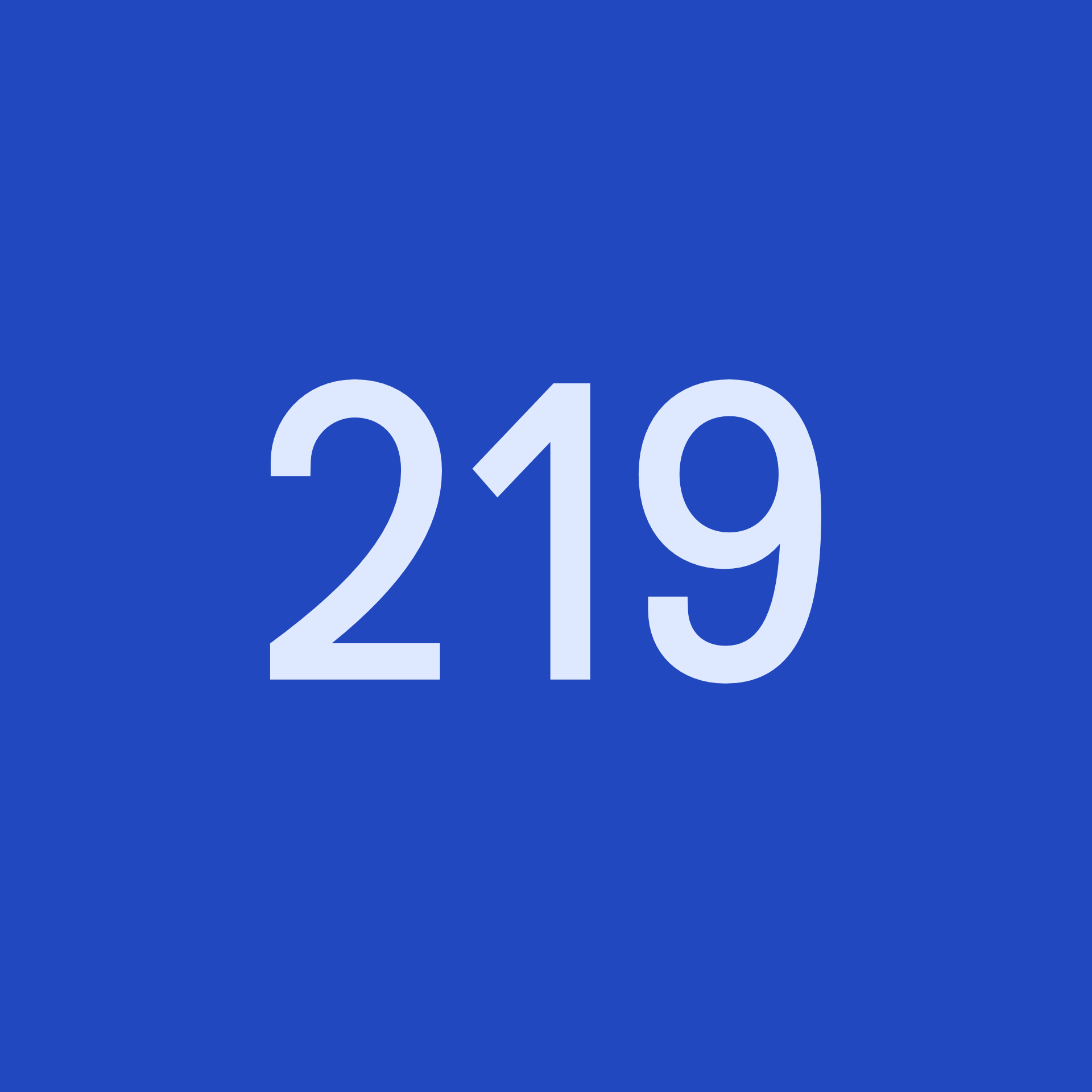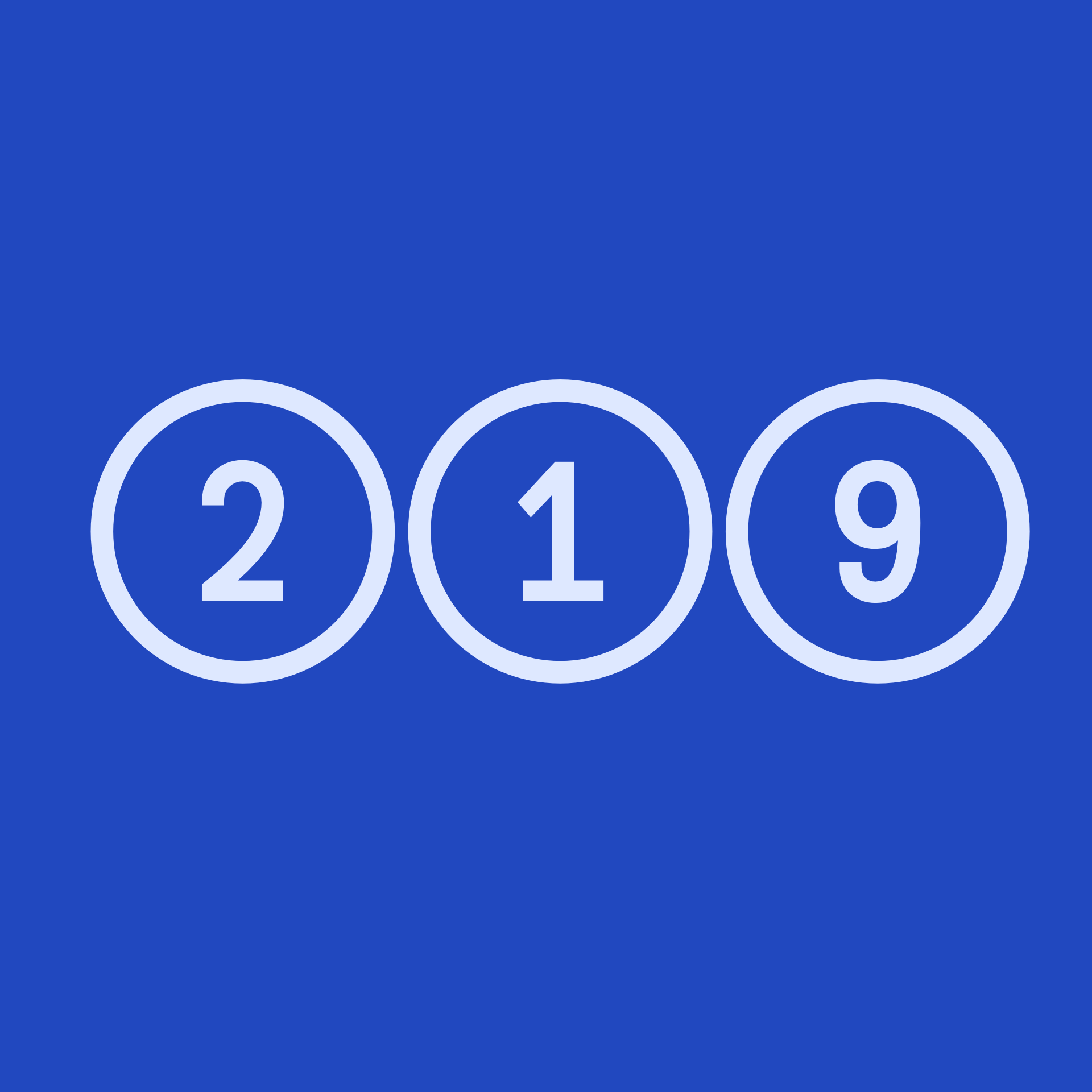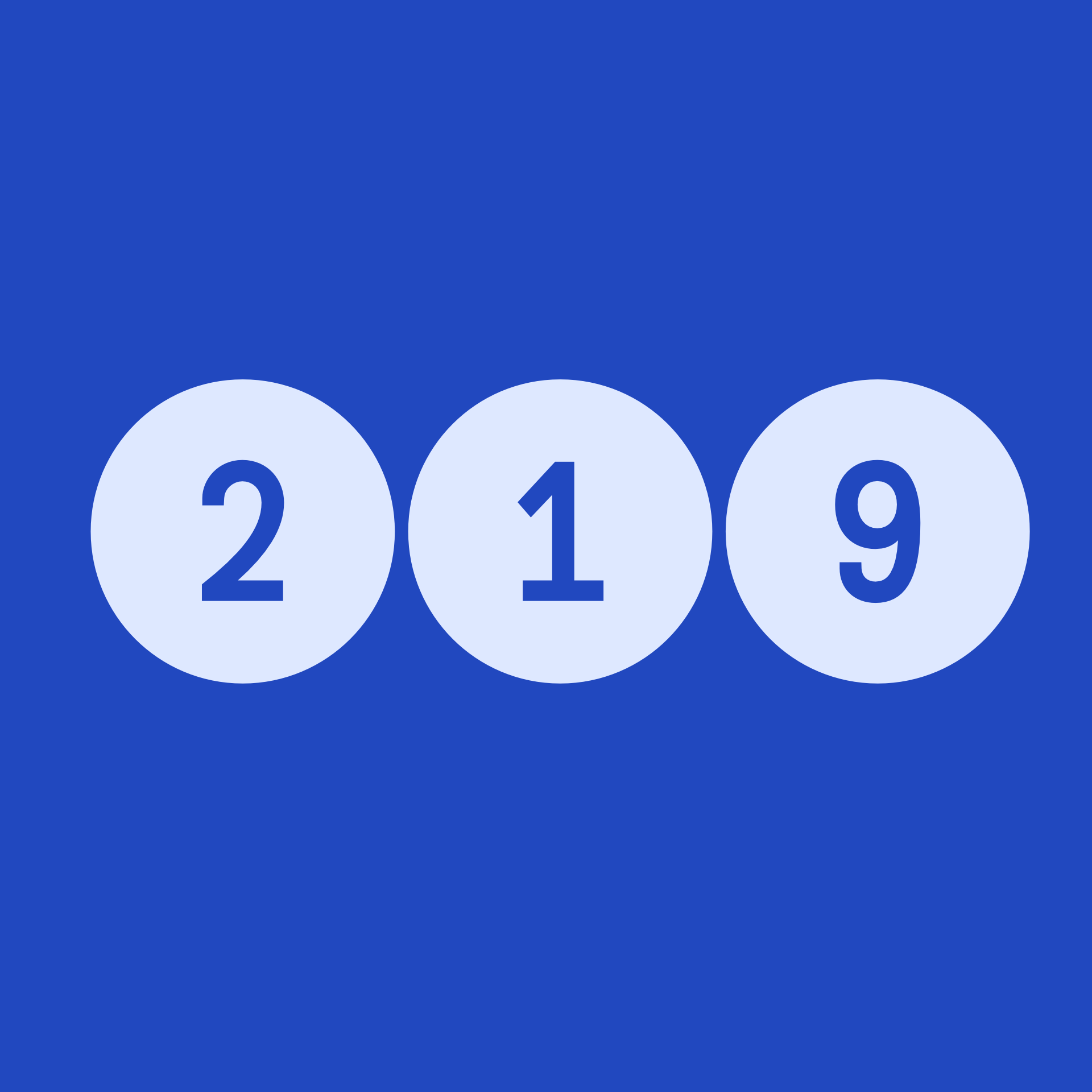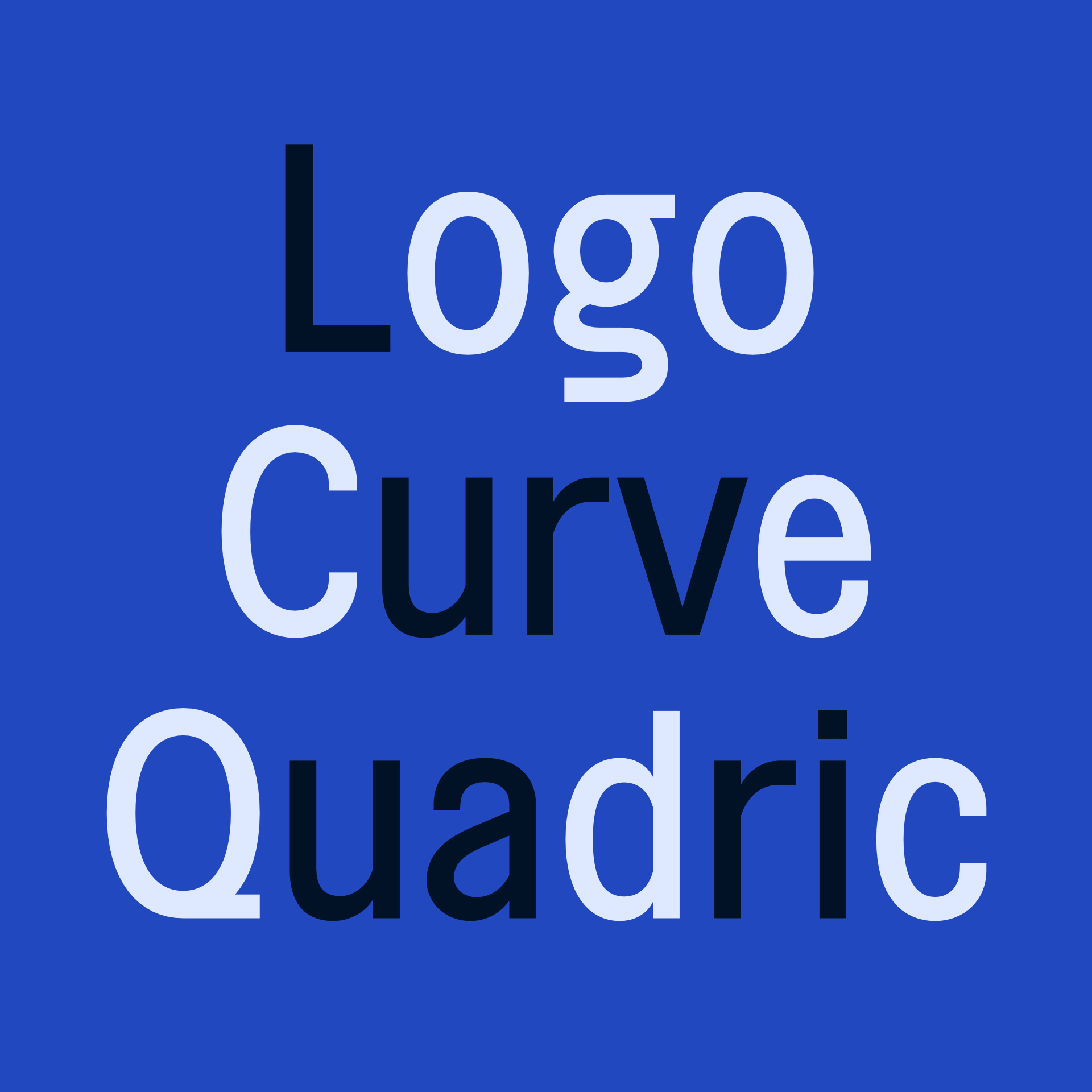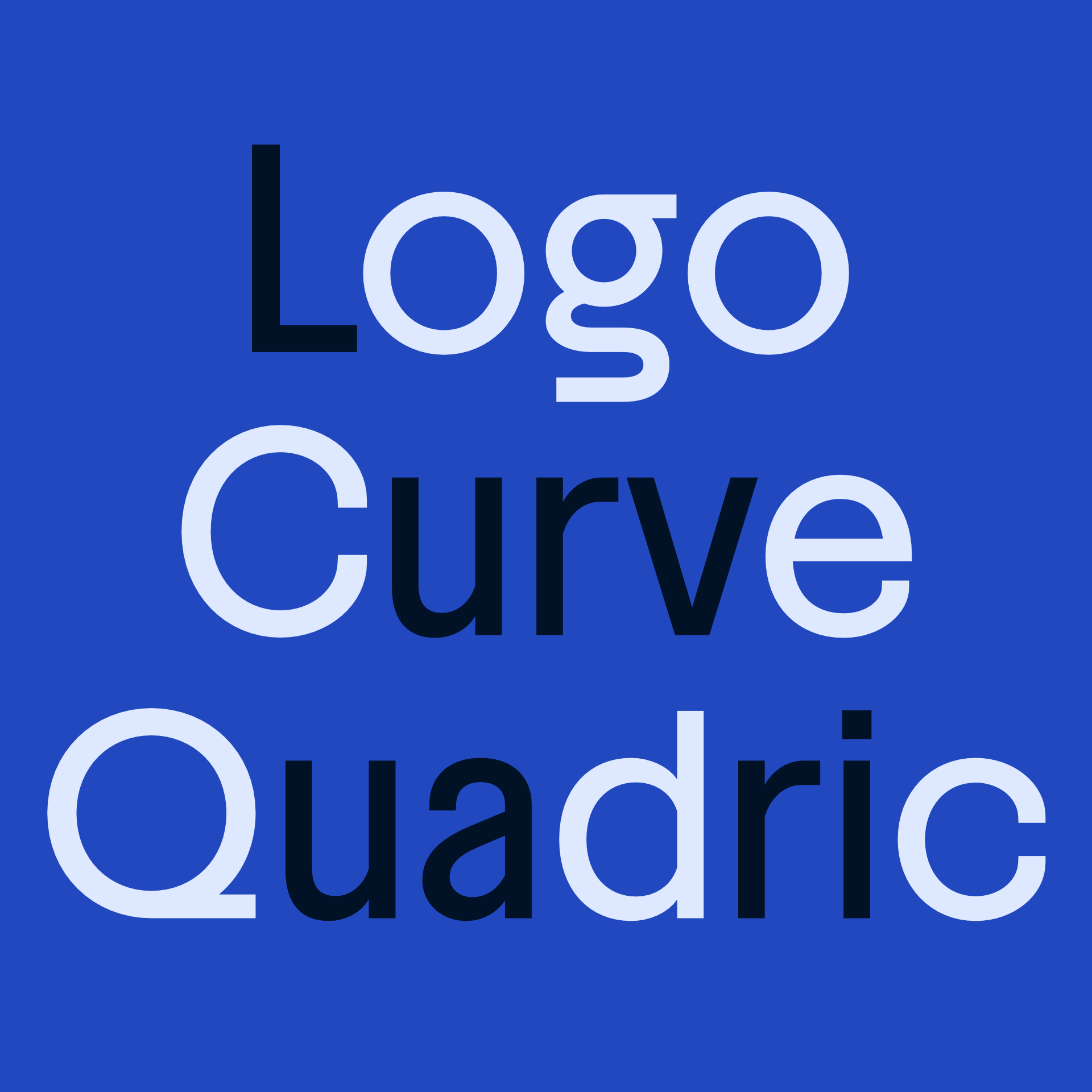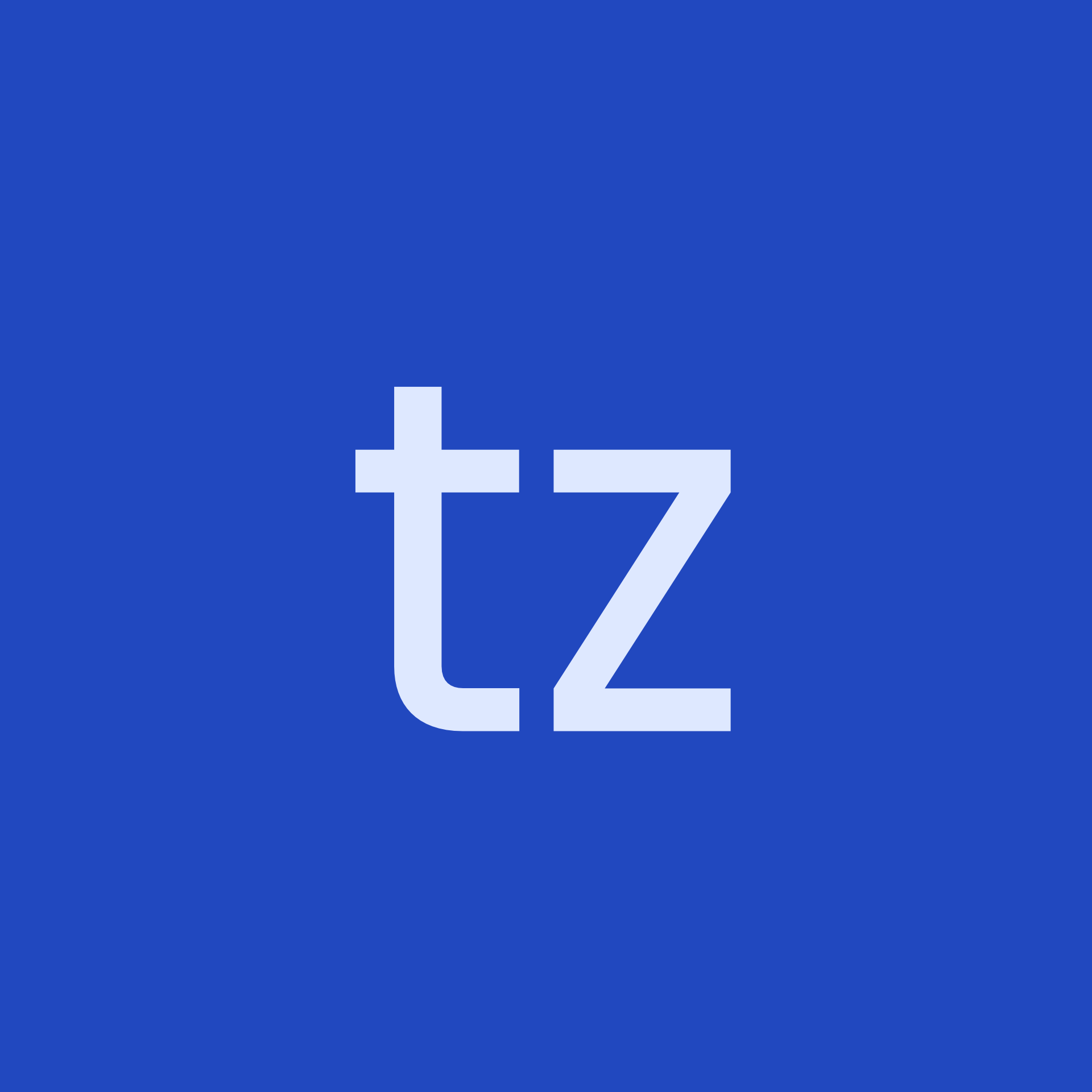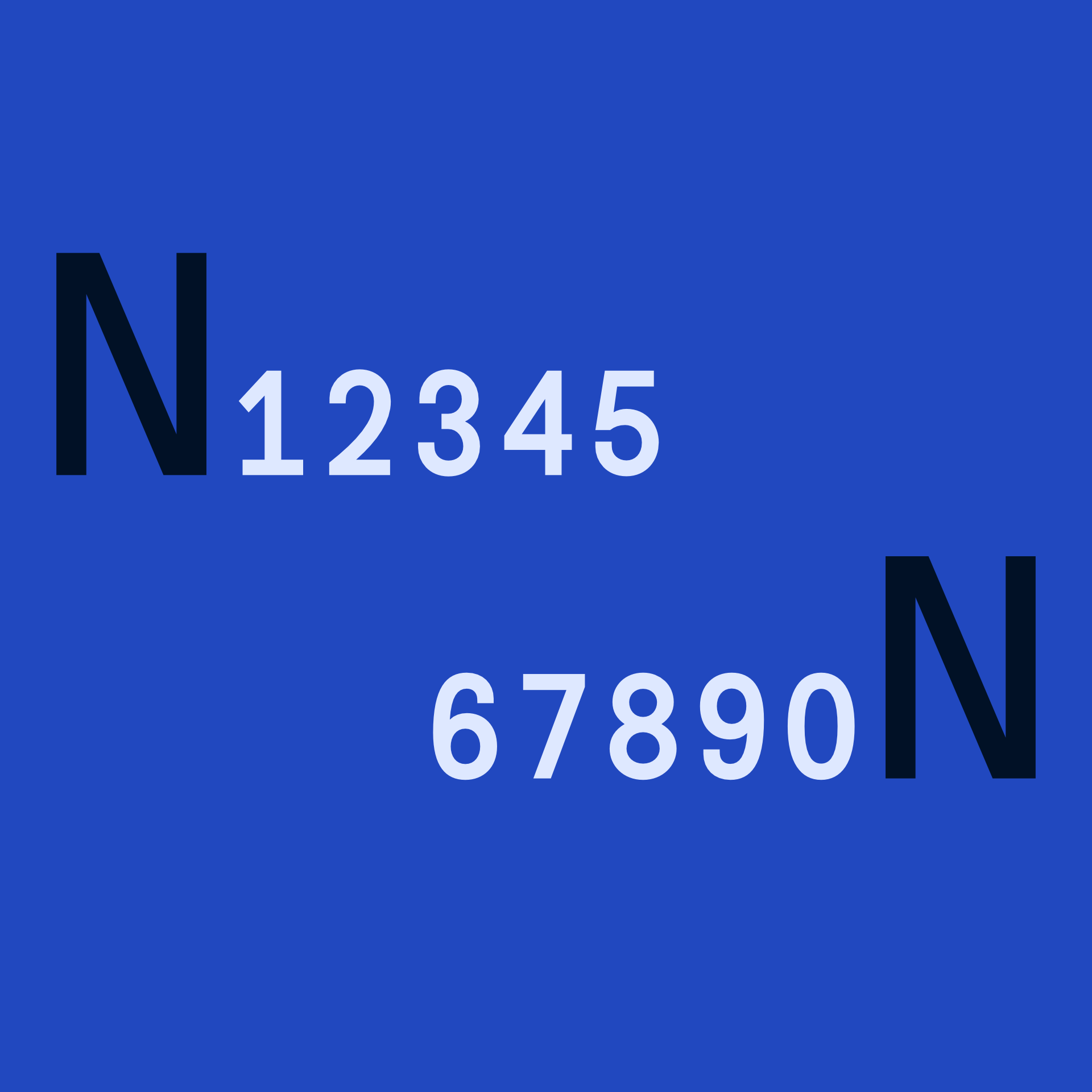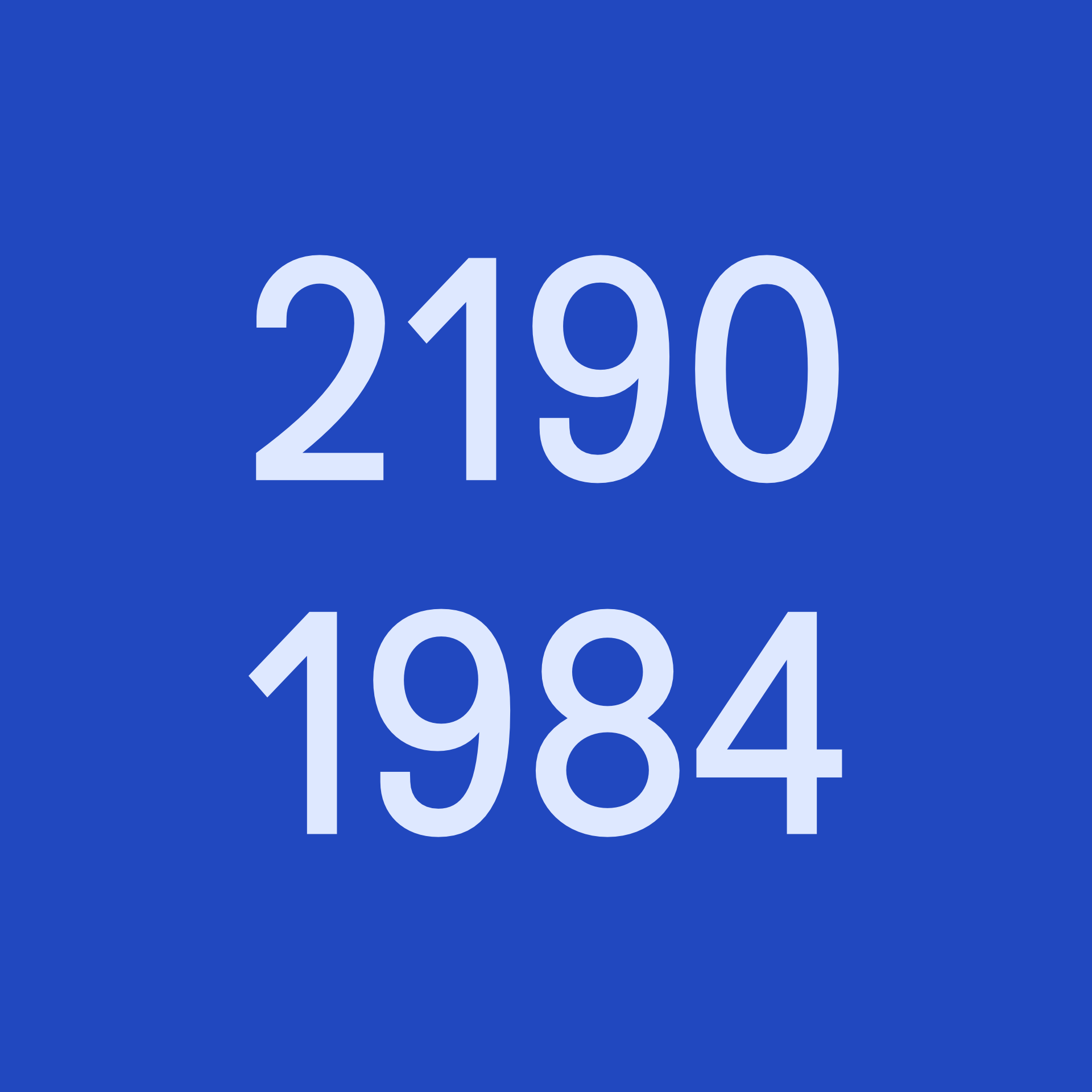
Notion
Notion is a geometric typeface with a pragmatic spirit and understated elegance. Rooted in the tradition of early grotesque-inspired fonts, it balances formal construction with subtle warmth.
Notion is a geometric typeface with a pragmatic spirit and understated elegance. Rooted in the tradition of early grotesque-inspired fonts, it balances formal construction with subtle warmth. Its slightly condensed proportions make it particularly well-suited as a text typeface, combining economy of space with a strong typographic rhythm.
Designed from a minimalist type design perspective, BS Notion favors clean, straight terminals that reinforce its functional typeface character. This is particularly visible in characters like a, f, g, r, t and Q, where structural clarity takes precedence over ornament.
BS Notion features two sets of flexible alternates to enhance usability. The first transforms oval terminals into near-perfect circles, shifting the tone from utilitarian to subtly expressive. The second introduces rounded forms for punctuation and diacritics, offering a softer, more approachable texture.
The family spans ten weights from Hairline to Black, each with a matching italic, for a total of 20 styles. A variable font is also available, enabling responsive typography across a wide range of contexts.